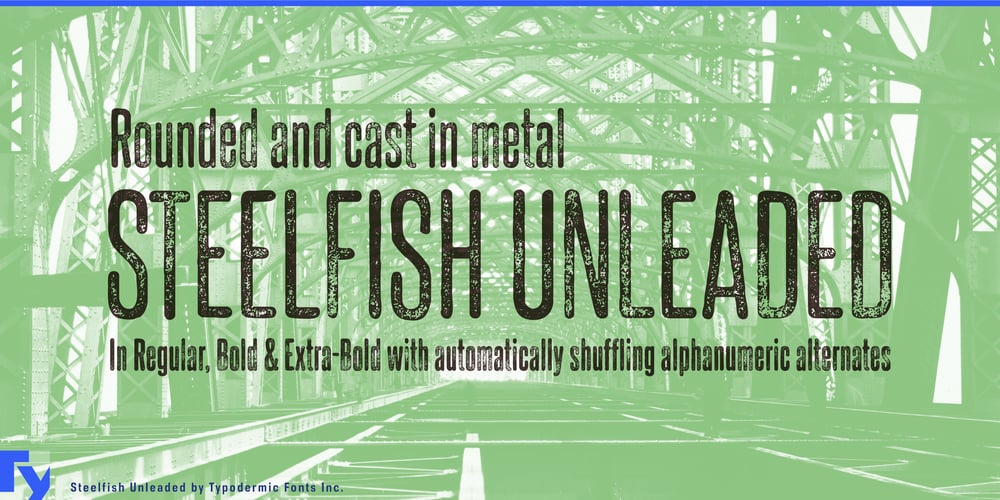
Steelfish Unleaded Font Family was designed by Ray Larabie and published by Typodermic. Steelfish Unleaded contains 3 styles and family package options. Steelfish Unleaded isn’t just a typeface—it’s a typographic revolution, stripping away the frills and leaving behind nothing but pure, unadulterated letterforms. This is the bare-knuckle boxer of the Steelfish family, ready to deliver your message with a punch that’s as clean as it is powerful.Imagine letters that have been through a typographic bootcamp, shedding every unnecessary ounce to become lean, mean communication machines. Steelfish Unleaded takes the iconic Steelfish DNA and distills it to its essence, creating a typeface that’s as efficient as it is impactful. It’s like the difference between a verbose speech and a razor-sharp quip—every character counts, and every line pulls its weight. But don’t mistake simplicity for lack of sophistication. Steelfish Unleaded comes in three distinct weights, each one a masterclass in typographic balance. From the whisper-quiet lightness that speaks of elegance to the thunderous bold that demands attention, this typeface gives you the tools to modulate your message’s volume with precision.And for those who crave a touch of the artisanal in their digital designs, Steelfish Unleaded delivers with its simulated letterpress texture. It’s like having a master printer at your fingertips, adding just enough grit to give your words substance without overshadowing their form. In OpenType-savvy programs, you can even toggle between three texture variations, creating a subtle dance of imperfections that bring your text to life. Steelfish Unleaded isn’t just a solo act—it’s part of a typographic supergroup. Alongside its siblings Steelfish, Steelfish Rounded, Steelfish Hammer, and Steelfish Steeled, it forms a versatile family ready to tackle any design challenge. It’s like having an entire design studio in your font menu, each member bringing its unique strengths to the table.But perhaps Steelfish Unleaded’s most impressive feat is its linguistic dexterity. Supporting an extensive range of Latin-based European, Vietnamese, Greek, and Cyrillic-based writing systems, this typeface ensures your stripped-down message maintains its power across borders and languages. From the minimalist galleries of Stockholm to the bustling streets of Hanoi, from the tech startups of Silicon Valley to the avant-garde theaters of Moscow, Steelfish Unleaded speaks the universal language of clarity and impact.So when your design needs to cut through the noise, when every character counts and every line matters, reach for Steelfish Unleaded. It’s a declaration of typographic independence, ready to strip your ideas down to their powerful core. With Steelfish Unleaded, you’re not just setting type; you’re making every letter a testament to the power of simplicity. It’s time to unleash your message, unencumbered and unleaded!